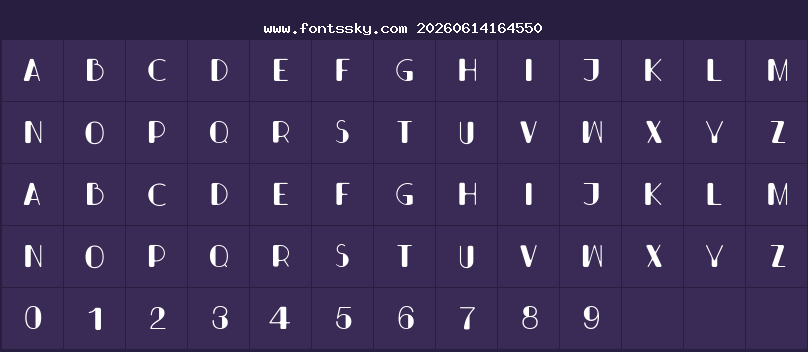
Bondi Regular Preview
• Font Name: Bondi Regular
• Full Font Name: Bondi
• PostScript Name: Bondi
• Designer: Alejo Bergmann
• Manufacturer: Hubert & Fischer
About Bondi Regular.ttf
Bondi Regular.ttf is a modern, elegant sans-serif font designed for ultimate readability and visual harmony. Perfect for branding, headlines, web design, and print materials.